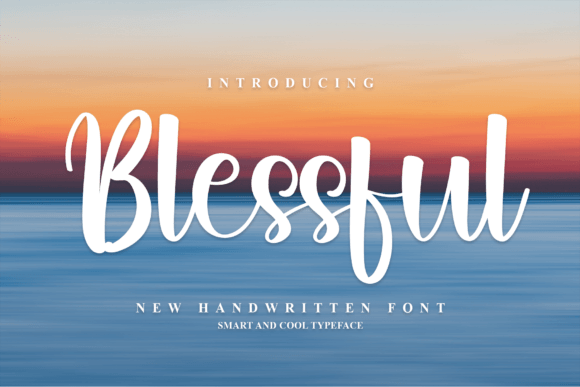
Unleash the Elegance: Blessful Font - The Epitome of Luxury and Grace
In the realm of digital artistry, where words dance across the screen, there exists a font that embodies the very essence of luxury and grace: Blessful Font. Blessful is not merely a collection of glyphs; it's an exquisite masterpiece, carefully handcrafted to elevate your designs to new heights of sophistication.
A Symphony of Cursive Beauty
Blessful Font belongs to the esteemed family of script fonts, a genre renowned for its flowing, organic lines that mimic the natural beauty of handwritten letters. Each character in the Blessful Font collection is a testament to the artistry of its creator, Inermedia STUDIO. The smooth, sinuous curves evoke a sense of elegance and refinement, while the subtle variations in thickness add depth and dimension to your text.
A Font that Adapts to Your Vision
One of the defining qualities of Blessful Font is its remarkable versatility. Whether you seek to create captivating logos, stunning invitations, or eye-catching social media posts, Blessful Font effortlessly adapts to your vision. Its inherent charm shines through, whether it's used as a standalone headline or seamlessly integrated into busy backgrounds.
The Perfect Choice for Luxury Brands
As its name suggests, Blessful Font is ideally suited for luxury brands that seek to convey a sense of exclusivity and opulence. Its sophisticated curves and graceful flourishes will add a touch of elegance to any design, making it the perfect choice for branding, marketing materials, and high-end products.
A Font that Inspires Creativity
With Blessful Font at your disposal, creativity knows no bounds. Let your imagination soar as you explore the endless possibilities it offers. From elegant wedding invitations to captivating social media posts, Blessful Font will transform your designs into works of art. Its versatility empowers you to create designs that resonate with your audience, leaving a lasting impression.